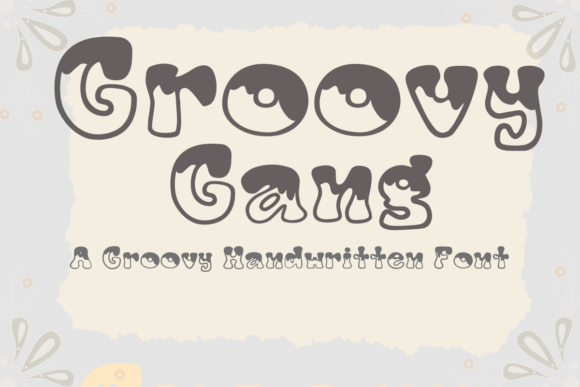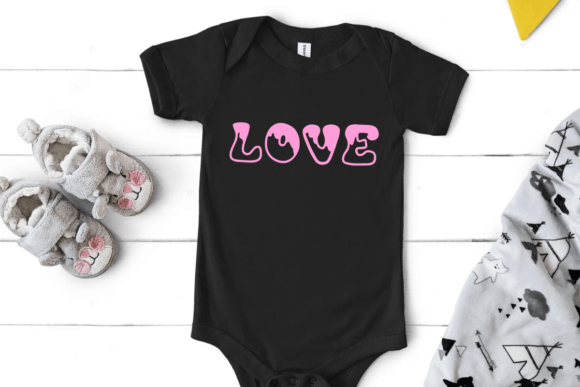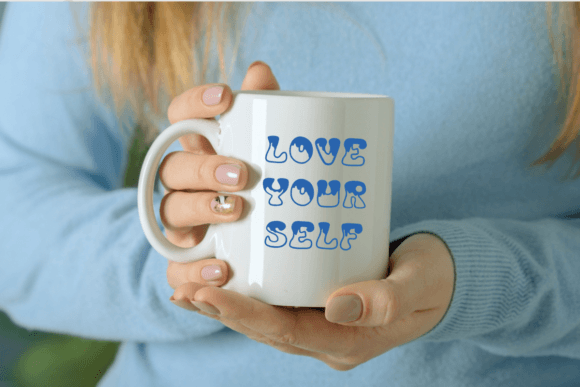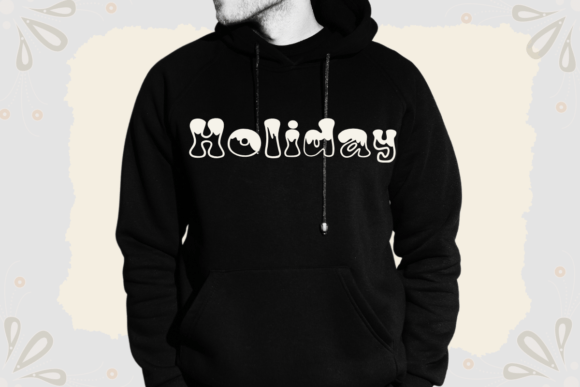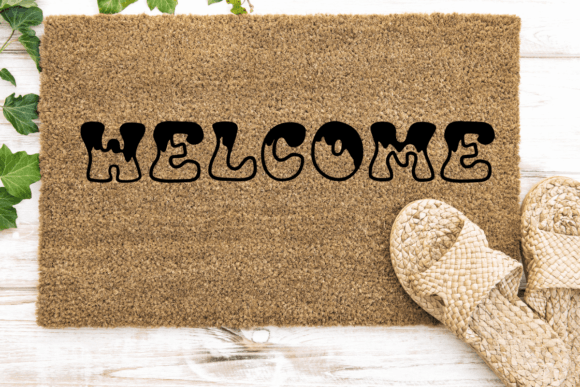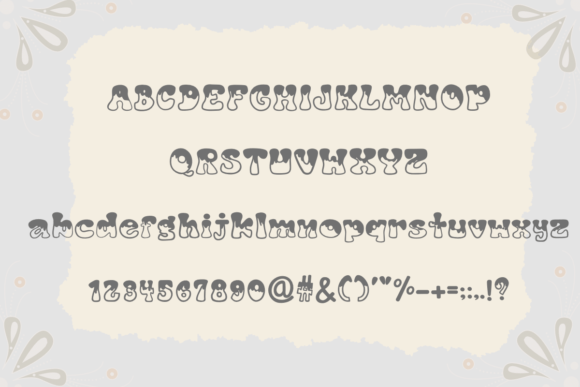
Get Ready to Groove with Your Design
Have you ever been browsing through a vintage store or antique shop, and stumbled upon an old record player or a funky pair of sunglasses that instantly sparks a creative idea? That’s exactly what happened to me when I discovered the Groovy Gang Font. This groovy font is the perfect blend of cool, retro, and cute vibes that will transport your designs back in time.
As a designer, you’re always on the lookout for unique and versatile fonts that can elevate your projects. The Groovy Gang Font is a valuable addition to any design toolkit, offering a range of creative possibilities from greeting cards to trendy mugs and stylish t-shirts. Its nostalgic charm and appeal make it a go-to choice for designers who want to add a touch of vintage coolness to their creations.
Groovy Gang Font Key Features
- Font Family: Groovy Gang Font is a sans-serif font family designed to evoke a fun and playful vibe.
- Unique Characteristics: Features a distinctive, rounded design with a subtle gradient effect, giving it a modern and eye-catching look.
- Language Support: Supports multiple languages, including Latin, Cyrillic, and Greek alphabets, making it suitable for global designs.
Groovy Gang Font Review
When I first laid eyes on the Groovy Gang Font, I was immediately drawn in by its funky vibe ✨. The font’s bold lines, playful characters, and psychedelic flair make it perfect for any project that needs a dash of retro cool. The designer’s attention to detail is evident in the carefully crafted letterforms, which ensure that the font remains legible even at larger sizes.
One of the standout features of the Groovy Gang Font is its versatility ✨. It can be used for a wide range of applications, from logos and branding to posters and merchandise. The font’s bold, eye-catching style is sure to grab attention and leave a lasting impression.
- ⚠️ Limited character set: The font’s character set is somewhat limited, which may make it less suitable for projects that require a wide range of characters.
- ⚠️ Not ideal for body text: While the font is perfect for headlines and titles, it may not be the best choice for body text due to its bold, playful style.
Overall, I’m really impressed with the Groovy Gang Font ✨. It’s a fun, energetic font that’s sure to add a touch of personality to any project. While it may have some limitations, its unique style and versatility make it a great choice for designers looking to add a little excitement to their work.
To get the most out of the Groovy Gang Font, use it for:
- Playful and creative designs.
- Eye-catching headlines and titles.
- Designs that require a fun and youthful vibe.
The Groovy Gang Font is commonly used for:
- Marketing materials.
- Social media graphics.
- Event invitations.